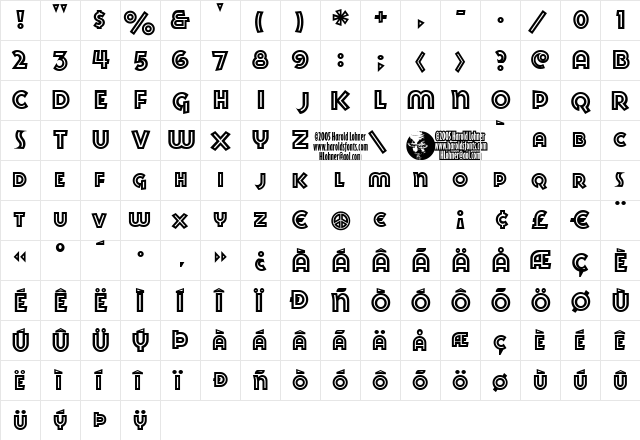
GoyaInline Regular
Design Context for GoyaInline Typeface
GoyaInline brings ornamental detail and strong personality to headlines and identities, where visual impact matters more than quiet functionality.
Font Pairing: Pair with a clean neutral sans-serif for body copy to let GoyaInline's character lead without overwhelming the composition.
Pro Tip: Use GoyaInline exclusively at display sizes — it was designed to be seen, not read at length. Let a neutral companion handle body copy.